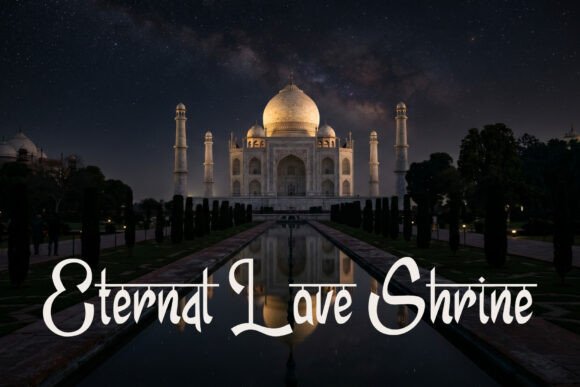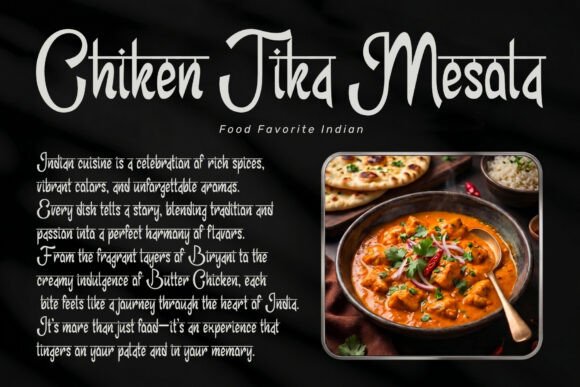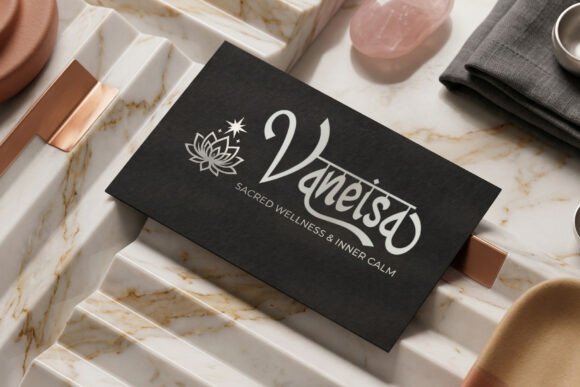
Introduction to Sabiren Font
Sabiren – Hindi Display Font Sabiren is a Hindi display font designed to bring beauty, cultural character, and expressive style to your typography.
Featuring distinctive Devanagari-inspired letterforms, smooth curves, and balanced shapes, Sabiren creates a visually appealing and artistic typographic presence .